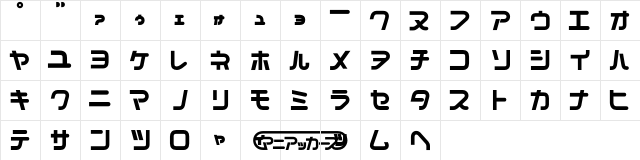
MMFont Black
Design Context for MMFont Typeface
MMFont is a composed and adaptable typeface that performs quietly and consistently across a wide range of design contexts.